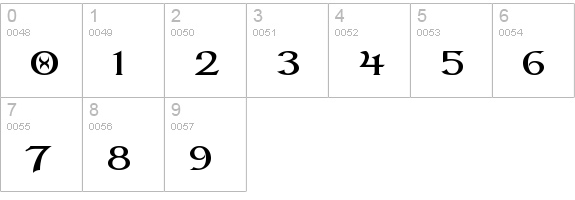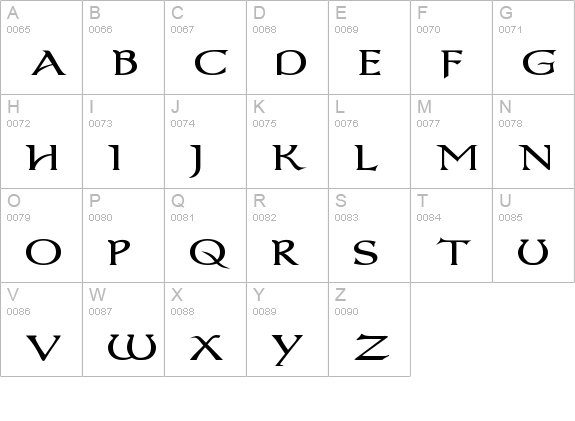
Dumbledor 1 Wide is a distinctive, extended-width variant in the Dumbledor typeface family \xE2\x80\x94 well suited to design and typography projects.
Dumbledor 1 Wide font is a stylish and eye-catching typeface that exudes a sense of elegance and sophistication. With its bold and wide letterforms, this font is perfect for making a statement in your designs. The clean lines and modern aesthetic of Dumbledor 1 Wide font make it a versatile choice for a wide range of projects, from branding and advertising to packaging and signage. Best of all, Dumbledor 1 Wide font is available for free download at FontsMarket.com, making it easily accessible for designers and creatives looking to add a touch of flair to their work. Whether you're working on a professional project or a personal passion project, Dumbledor 1 Wide font is sure to elevate your design and leave a lasting impression.